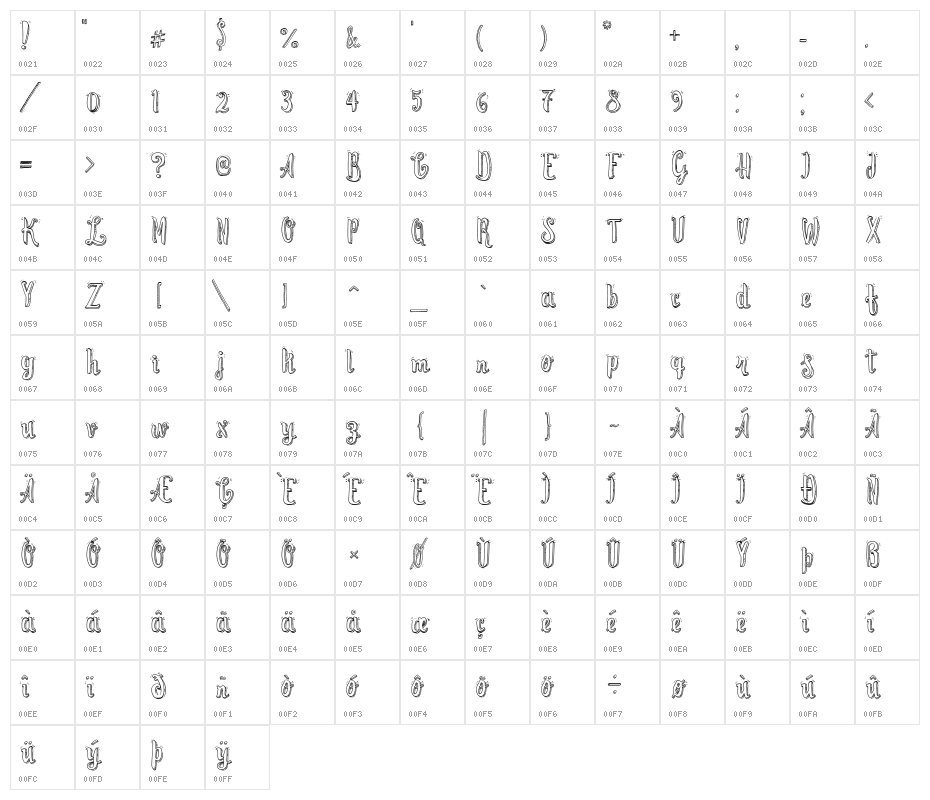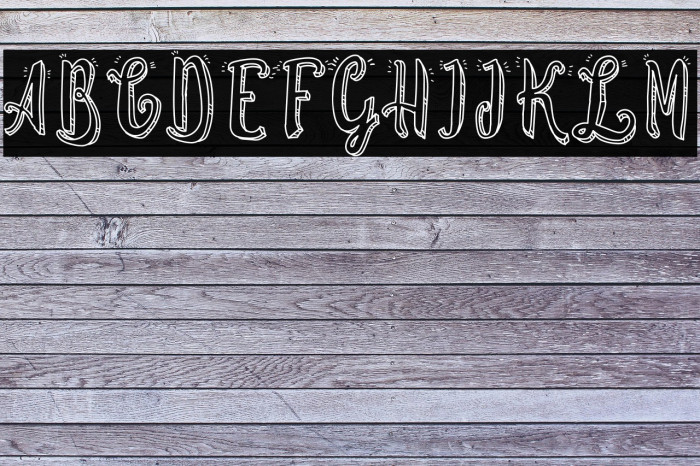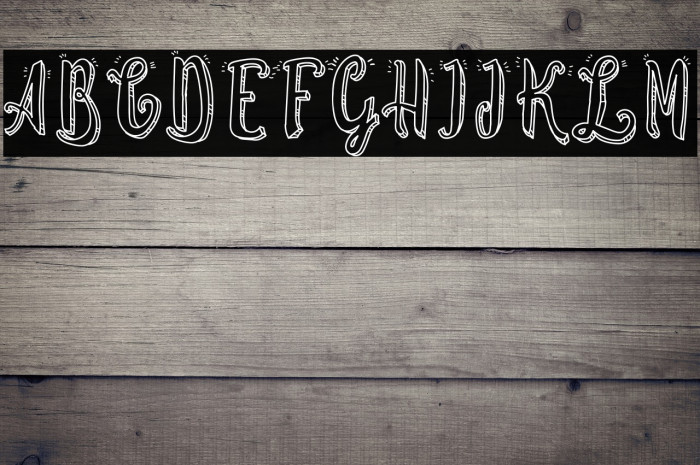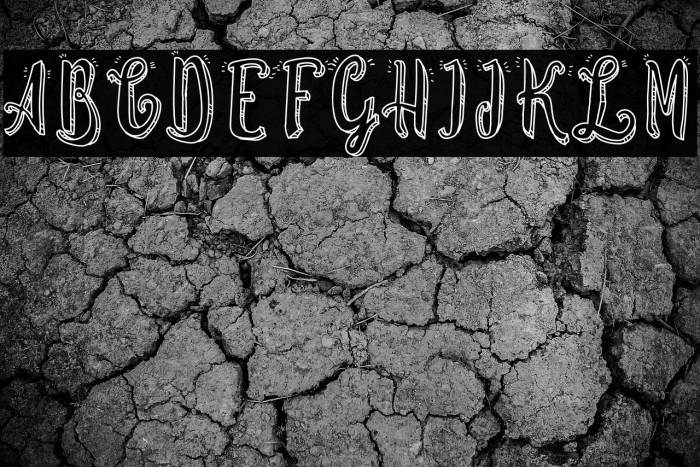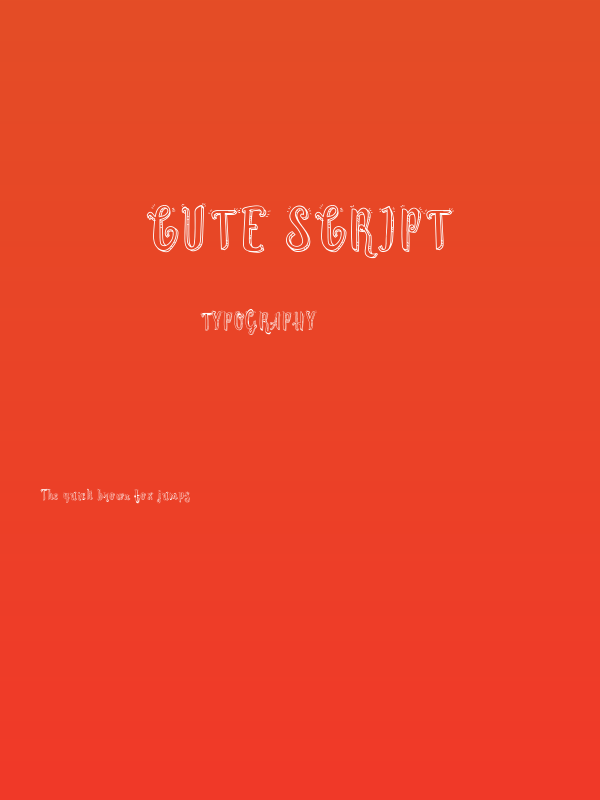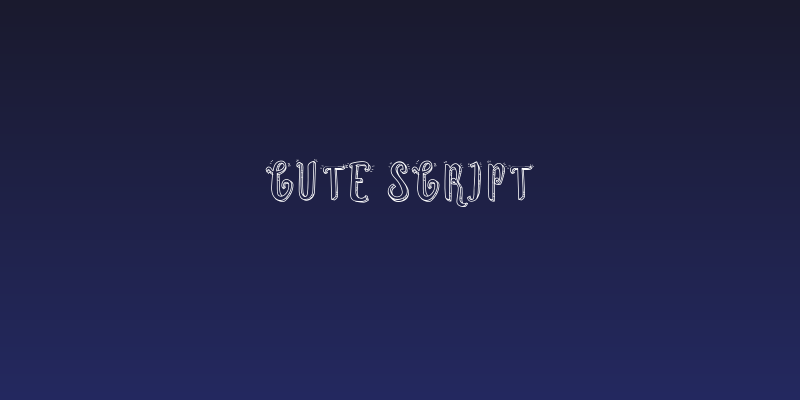
Cute Script Font
Cute Script Description
This font features a playful and whimsical design, characterized by its hand-drawn, script-like appearance. Each letter is adorned with small decorative elements, giving it a lively and energetic feel. The strokes are uneven, adding to the casual and informal style. The uppercase letters are bold and prominent, while the lowercase letters maintain a consistent flow, enhancing readability. Numbers and special characters are crafted with the same playful touch, making them suitable for creative and fun projects. The overall design is charming and approachable, perfect for adding a personal touch to any text.
| Use Case | Headlines, Logos, Creative projects |
| Proposed Projects | Ideal for greeting cards, children's book covers, playful branding, and DIY crafts. |